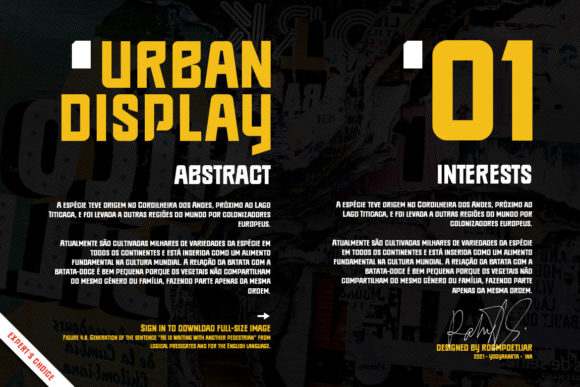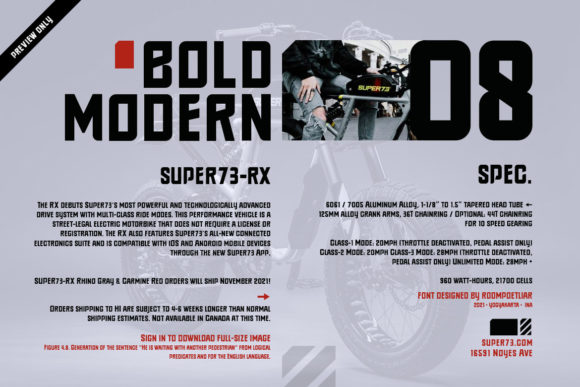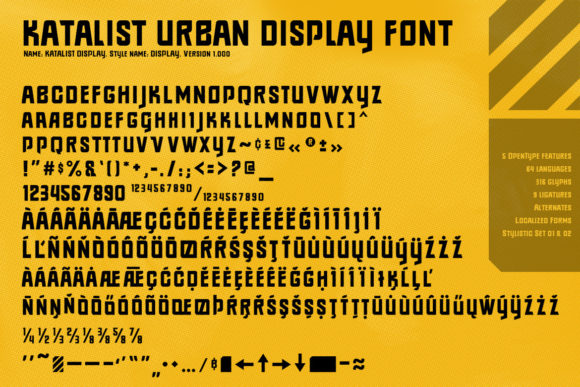
Introduction to Katalist Font
Katalist is a cool and bold thick display font.
Why Choose Katalist Font?
Katalist Font offers exceptional quality and versatility, making it a valuable addition to your design toolkit. Whether you’re creating for personal projects or commercial use, Katalist Font delivers professional results.